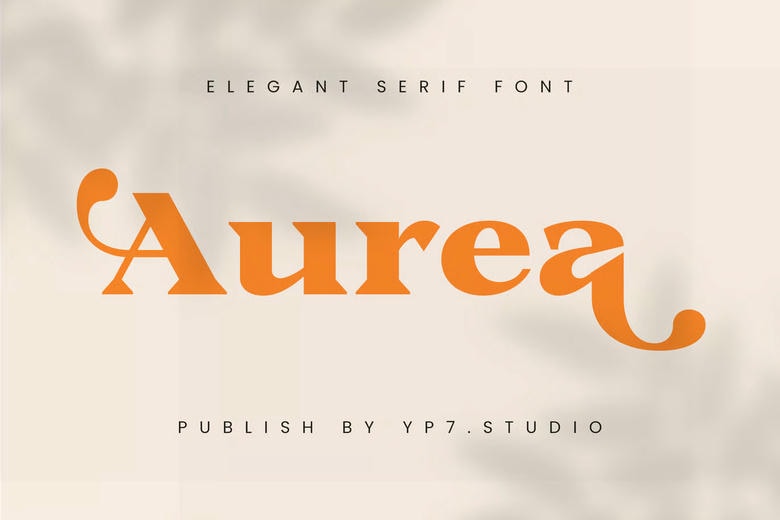
Aurea Font
Aurea is an elegant serif font that has a mixture of sophistication and fineness of an old style. With its sophisticated lines and elegant details, it is an ideal option in high-end branding, editorial design, and any other project that targets a high-end and sophisticated look.
Aurea Serif Font